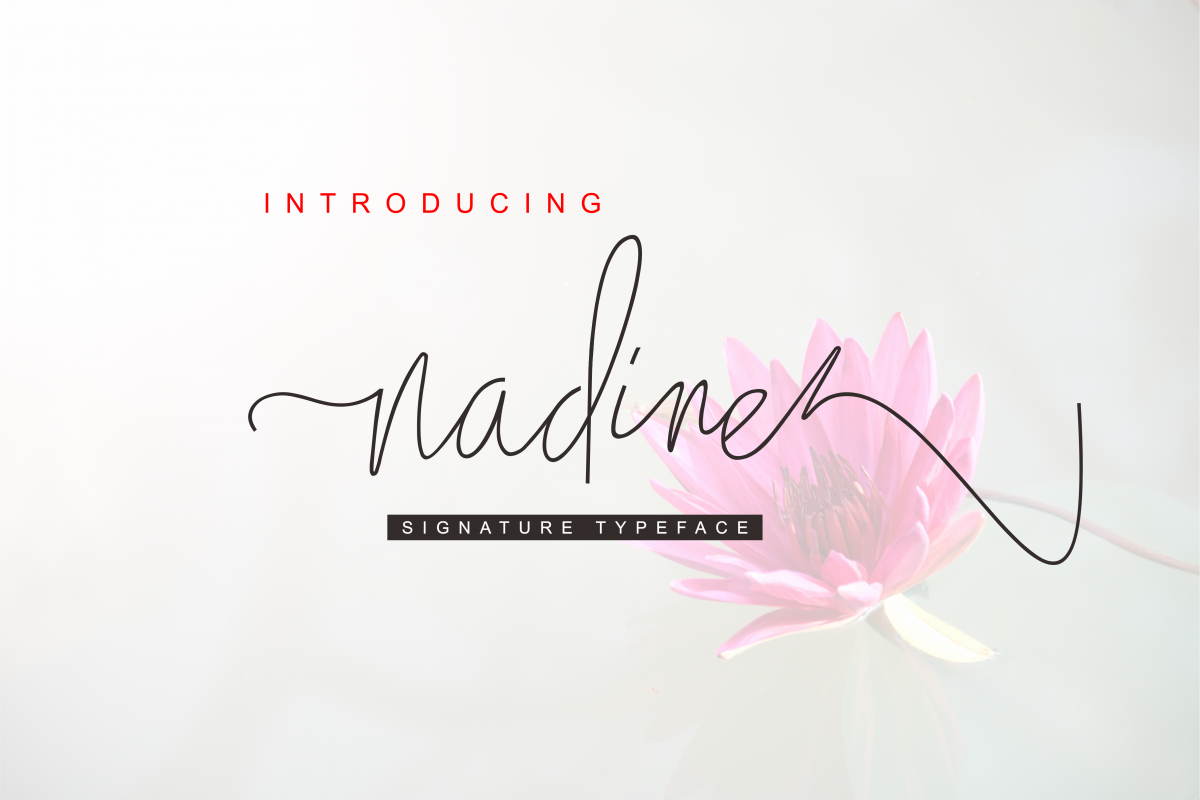
nadine
Nadine
Nadine is a signature font, this font is created with great care, this font is perfect for, greeting card business cards and other invitations other.  nadine has given PUA encoded (fonts with special code).
nadine